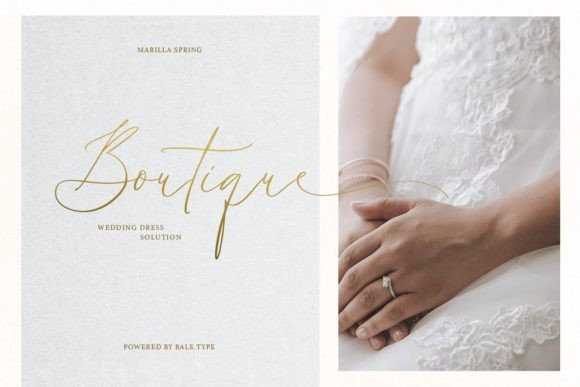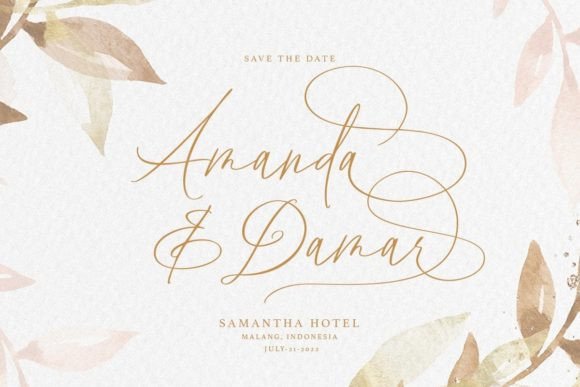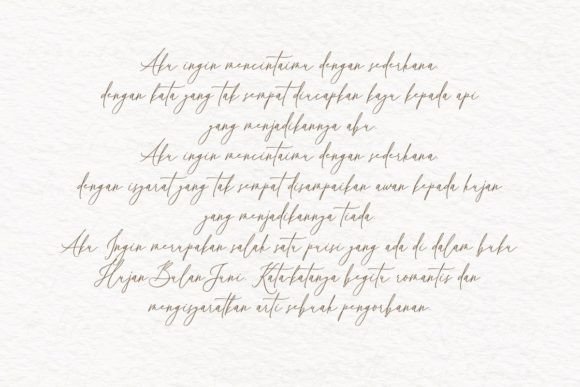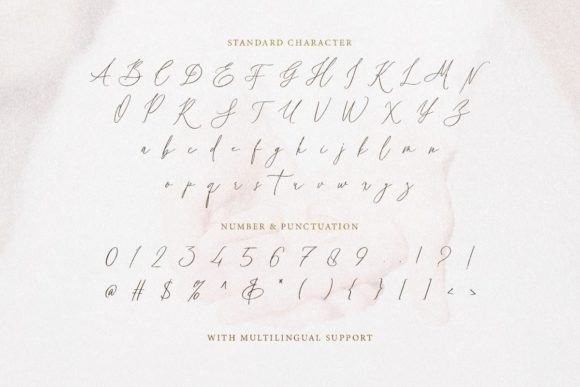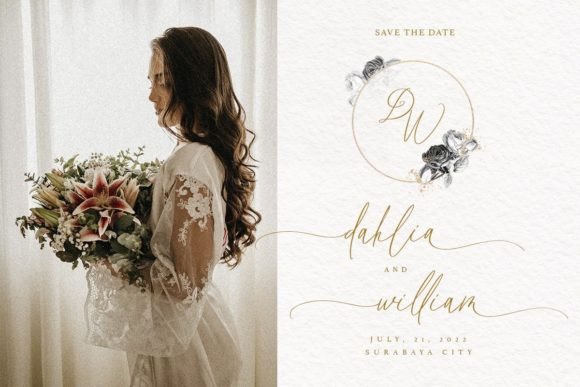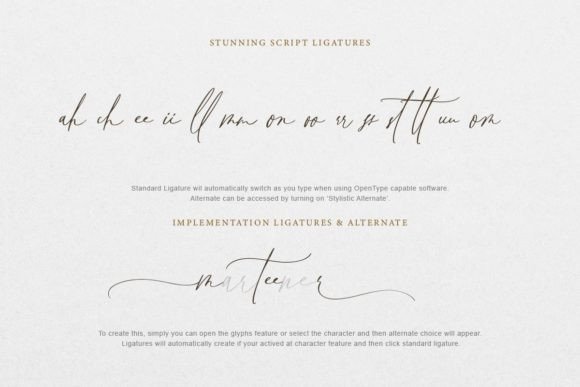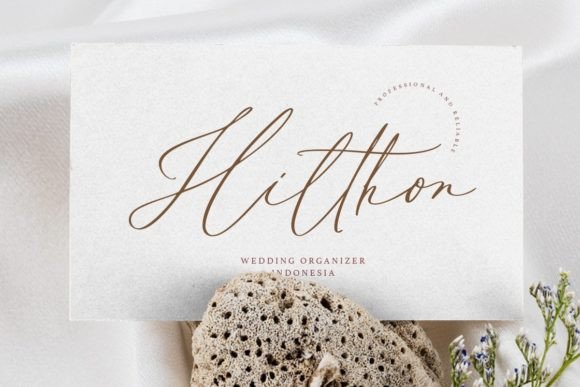
Marilla Spring Font
About Marilla Spring Font
Marilla Spring is a stunning and contemporary script font designed to add a touch of beauty and modernity to your projects. Its elegant and graceful style makes it perfect for creating feminine logo branding, wedding invitations, handwritten quotes, and various other designs that require a lovely and classy touch. By incorporating Marilla Spring into your designs, you can elevate the overall aesthetics and infuse them with a sense of sophistication and charm.
The font’s flowing and delicate strokes create a sense of elegance, making it ideal for projects that demand a feminine and graceful appearance. Whether you’re designing a wedding invitation suite, crafting a romantic handwritten quote, or creating a sophisticated logo for a feminine brand, Marilla Spring adds a layer of refinement and loveliness to your text.
Embrace the beauty and modernity of Marilla Spring in your designs, and let its graceful script enhance your creative vision. Whether you’re working on personal or professional projects, this font is sure to bring a touch of class and charm to your typography. Let Marilla Spring make your designs more lovely and classy, leaving a lasting impression on your audience.